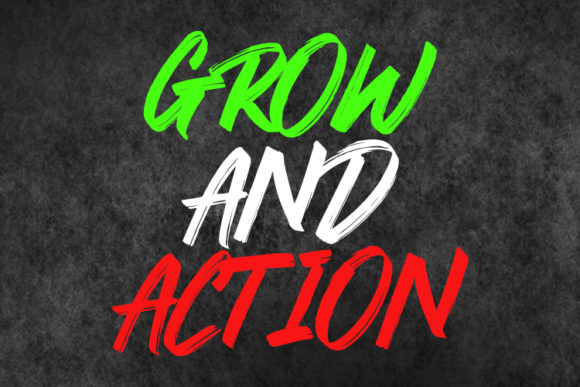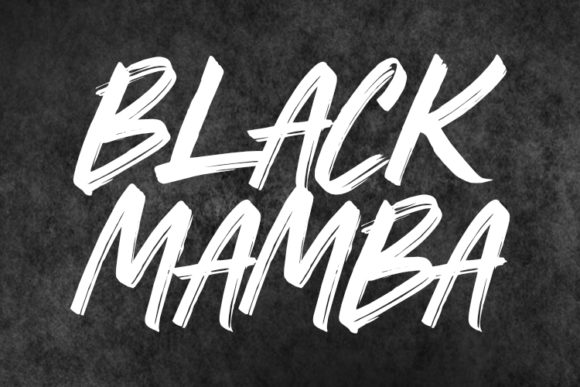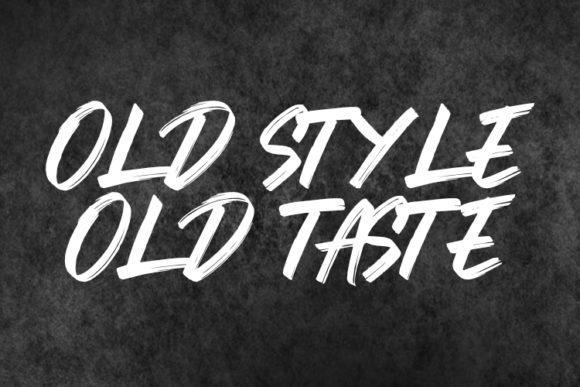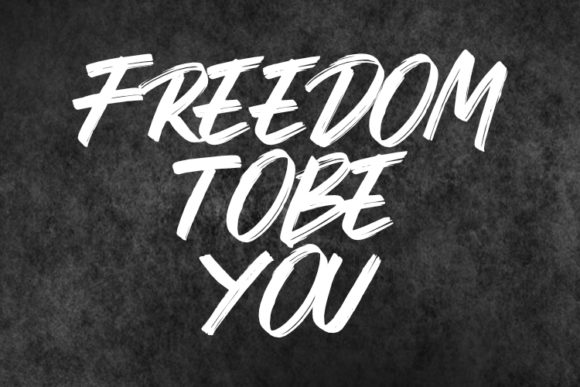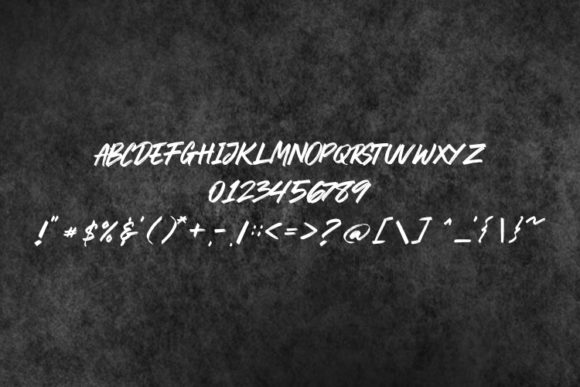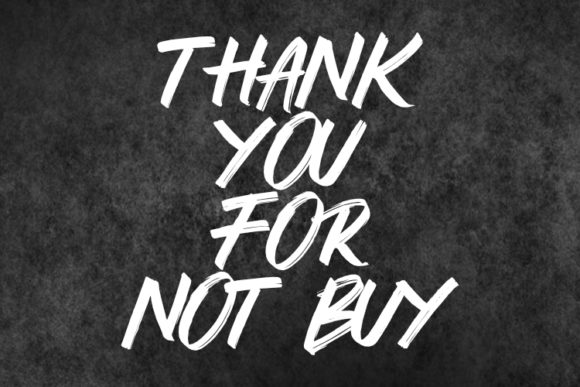
Unleash Your Creativity with Crackrock Font
Do you remember that moment when a brilliant design idea strikes you, but you’re not sure how to bring it to life? You’ve got the vision, but the right tools are missing. That’s where Crackrock Font comes in – a meticulously crafted brush font designed to turn your creative spark into a true masterpiece.
As a designer, you know that the right font can make all the difference in elevating your work from good to great. Crackrock Font is more than just a typography tool – it’s a partner that helps you bring your unique style and flair to the table. With its carefully drawn brush strokes and elegant curves, this font is the perfect addition to any design project.
Crackrock Font Key Features
- Font Family: Crackrock Font is a sans-serif font family.
- Character Set: The font family includes a wide range of characters, including Latin, Cyrillic, and Greek alphabets, as well as punctuation and symbols.
- Unique Characteristics: Crackrock Font features a distinctive, bold, and futuristic design, making it ideal for use in graphic design, advertising, and digital media.
Designer Review: Crackrock Font
Overall, I’d say the Crackrock Font is a unique and eye-catching addition to any design project. ✨ The bold, distressed look is perfect for giving your text a rough-around-the-edges feel. I love how it adds a sense of grit and attitude to any design.
- ✨ The font’s bold lines and distressed texture add a lot of character to text.
- ✨ The font is highly versatile and can be used for a variety of design projects, from logos to posters.
- ✨ The font is easily recognizable and will likely grab the viewer’s attention.
That being said, there are a few limitations to consider. ⚠️ The font may not be suitable for all design projects, particularly those that require a more polished or professional look. Additionally, the font’s distressed texture can sometimes be overwhelming or difficult to read in certain contexts.
- ⚠️ The font may be too bold or overwhelming for certain design projects.
- ⚠️ The distressed texture can sometimes be difficult to read or understand.
Overall, I’d give the Crackrock Font 4 out of 5 stars. While it may not be suitable for every design project, it’s a great choice for projects that require a bold, eye-catching look. With a little careful planning and consideration, the Crackrock Font can be a real showstopper.
Practical Application Guide for Crackrock Font
The Crackrock Font is a versatile font that can be used for various design projects, including:
- Graphic design and branding.
- Web design and development.
- Print design and publishing.
For optimal results, use the Crackrock Font in conjunction with other bold and eye-catching fonts to create a striking visual effect.